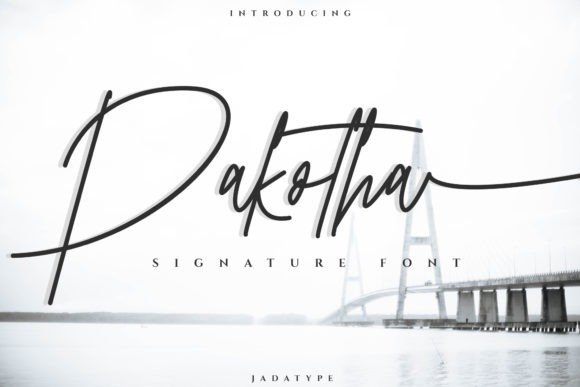
Pakotha Font
Pakotha Handwritten Font is a sophisticated monoline signature typeface created by jadatype with beautiful alternate glyphs that you can experiment with. Fall in love with its incredibly distinct and timeless style and use it to create spectacular designs! This font is PUA encoded which means you can access all of the glyphs and swashes with ease!